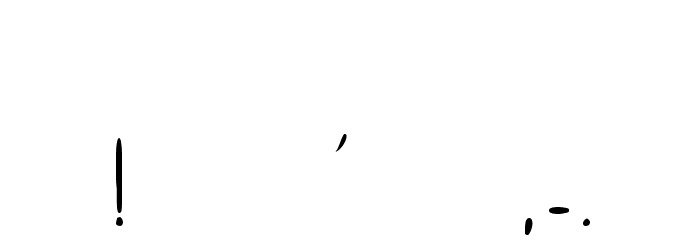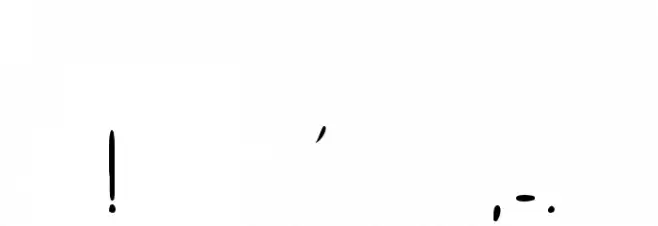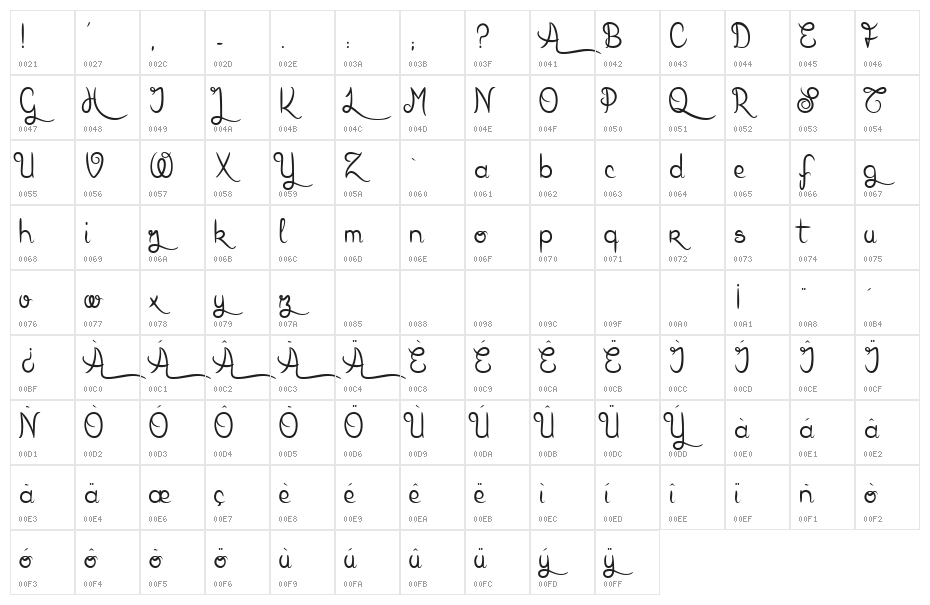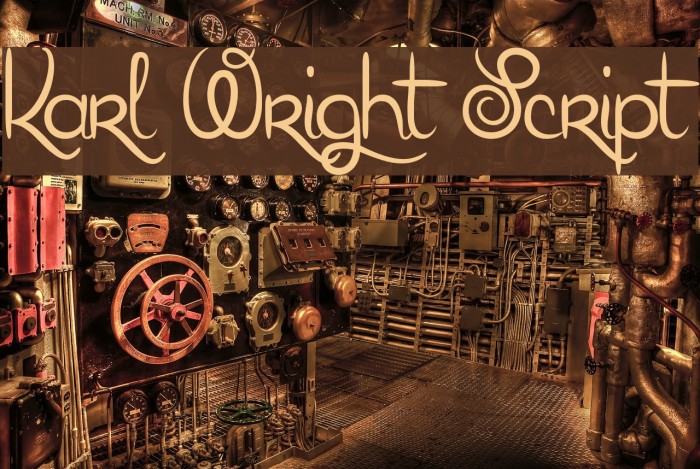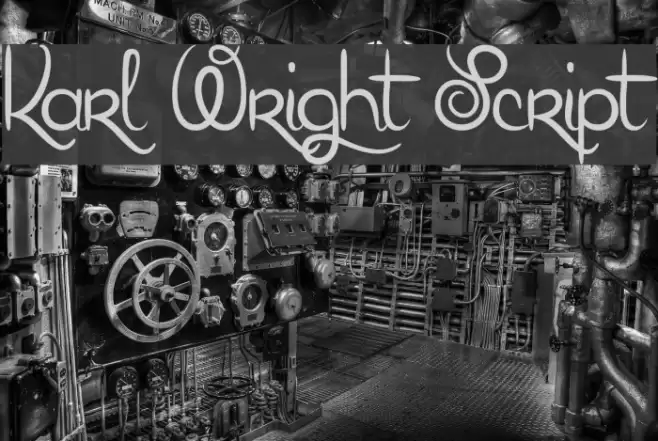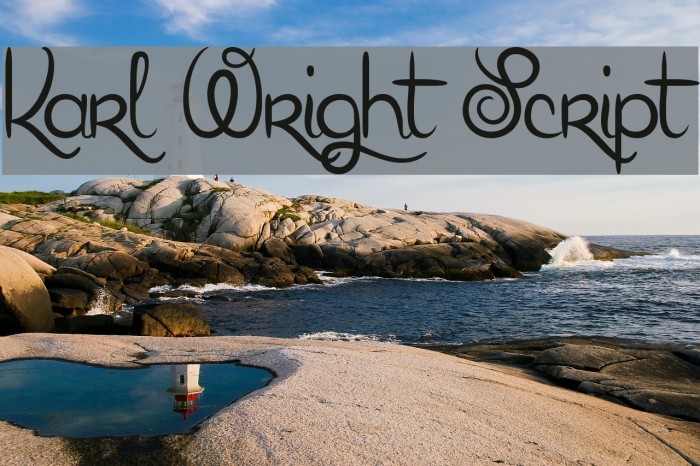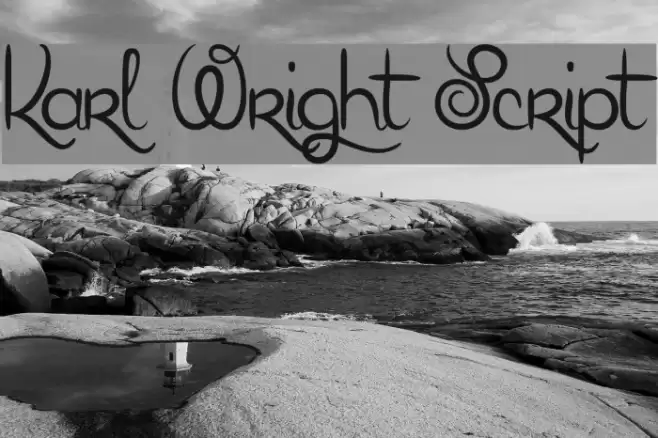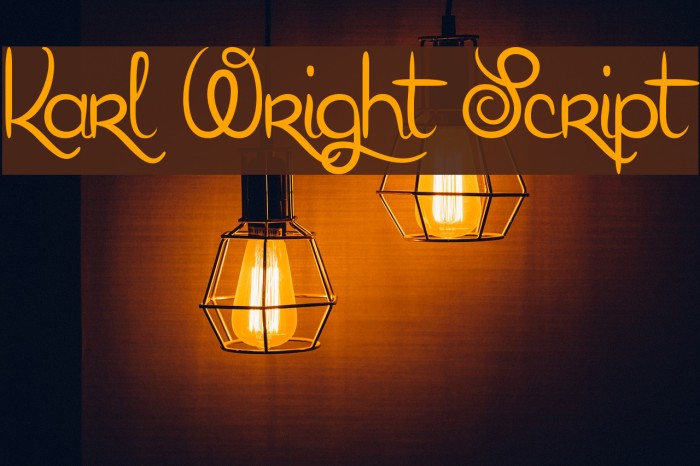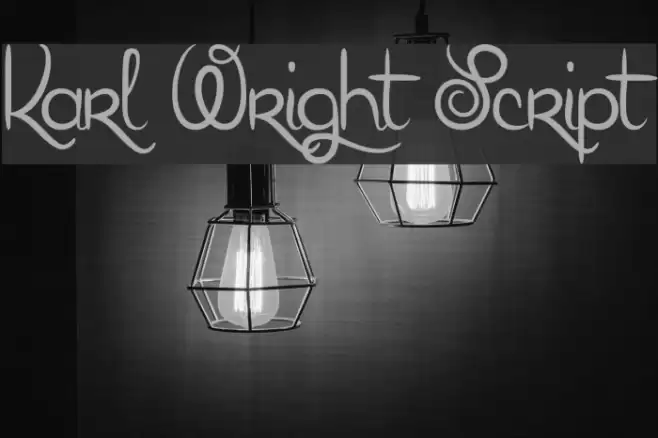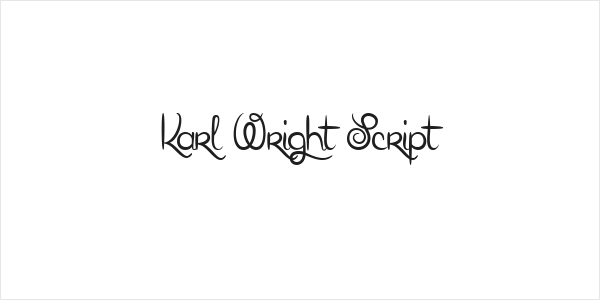
Karl Wright Script Font
Karl Wright Script Description
This font features an elegant and flowing script style, characterized by its intricate swirls and loops that give it a sophisticated and artistic appearance. The uppercase letters are particularly ornate, with extended flourishes that add a sense of drama and flair. The lowercase letters maintain a consistent flow, complementing the uppercase with their own subtle curves. The font's overall design is reminiscent of calligraphy, making it suitable for projects that require a touch of elegance and creativity. Its unique style is both eye-catching and readable, making it versatile for various design needs.